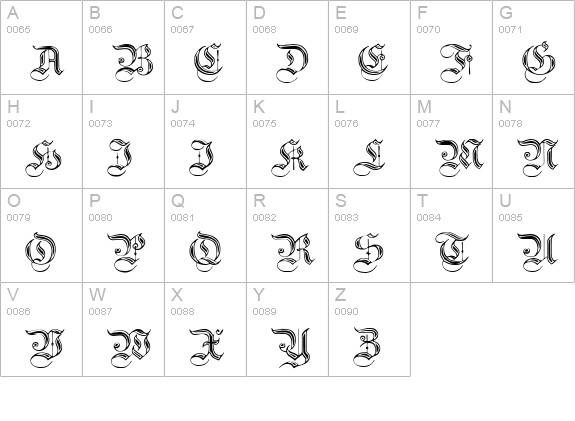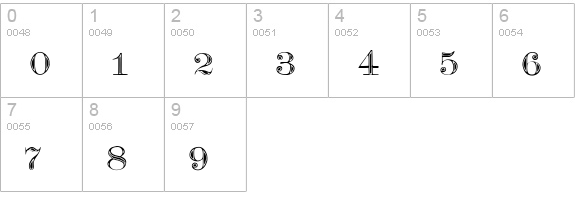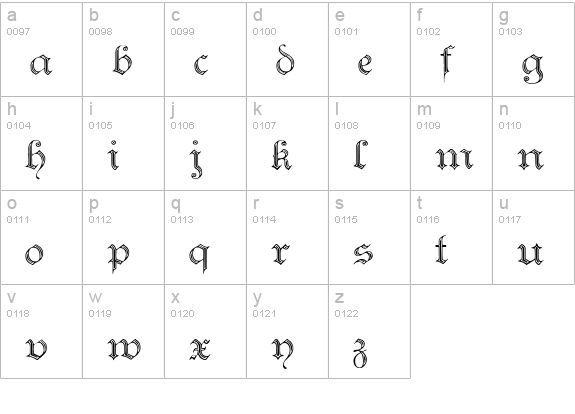
Teutonic No2 DemiBold Font Details
Teutonic No2 DemiBold is a sub-bold, structured variant in the Teutonic typeface family \xE2\x80\x94 well suited to sub-headlines and emphasised passages.
The Teutonic No2 DemiBold font is a versatile and elegant typeface that exudes strength and sophistication. Its bold and commanding presence makes it perfect for headlines, titles, and other design projects that require a strong visual impact. The clean lines and sharp edges of this font give it a modern and timeless look that is sure to make any design stand out. What sets Teutonic No2 DemiBold apart is its perfect balance of weight and clarity, making it easy to read even at smaller sizes. Whether you're designing a logo, poster, or website, this font will make your text pop and leave a lasting impression on your audience. And the best part? Teutonic No2 DemiBold is available for free download at FontsMarket.com. So go ahead and elevate your designs with this stunning font without breaking the bank. Download it now and take your projects to the next level.